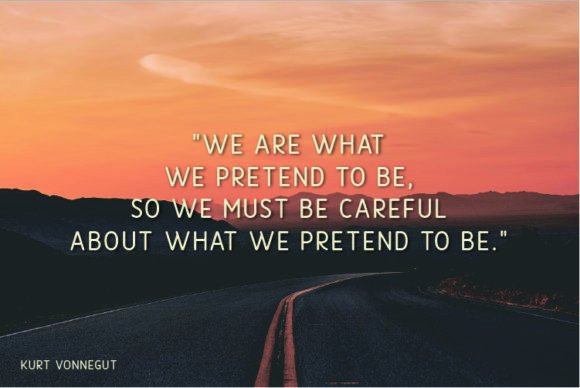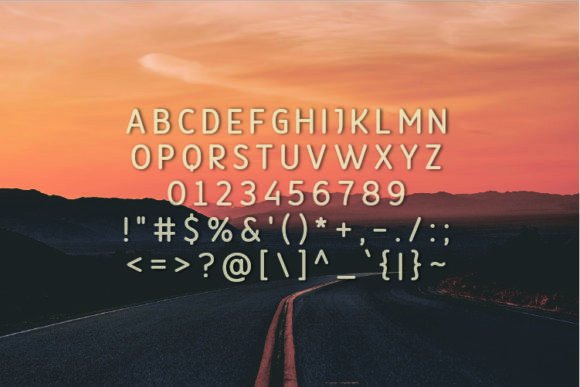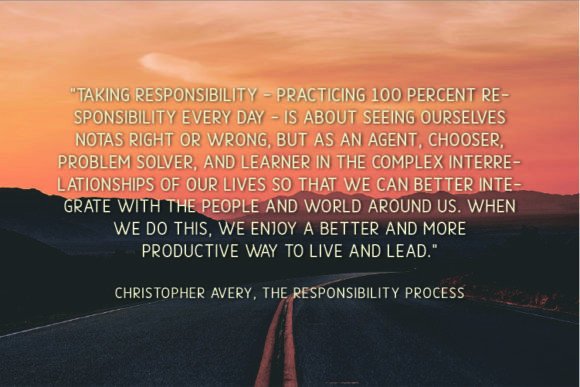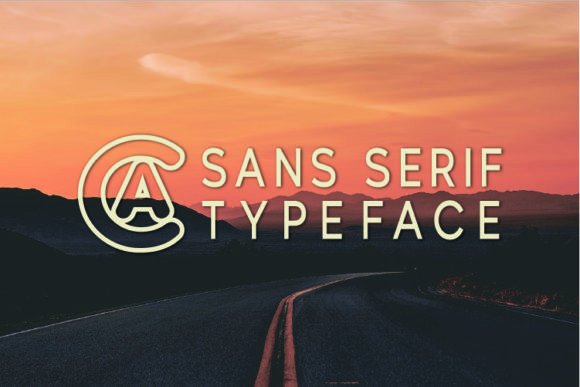
Introducing California: The Modern, Classy Sans Serif Font You Need
I’ll never forget the design project that led me to discover California, a stunning sans serif typeface that has since become a staple in my toolkit. I was working on a luxury brand campaign, and my client requested a font that exuded sophistication, elegance, and a touch of modernity. After hours of scouring font libraries and testing various options, I stumbled upon California – and it was love at first sight! ✨
A Closer Look: What Makes California Special
California is a versatile sans serif typeface that boasts an impressive range of features, making it perfect for a wide array of design projects. Here are some of the key characteristics that caught my attention:
- Uppercase characters, numbers 0-9, and a variety of punctuation and symbols
- Clean, modern lines with a touch of elegance
- Extremely legible, even at small sizes
Honest Review: The Good, the Great, and the Quirks
Now, let’s get down to business – what do I love about California, and where does it fall short? 🤔
- ✨ Its versatility: California shines in logos, weddings, invitations, quotes, advertisements, print, magazines, and more!
- ✅ Exceptional legibility, even at small font sizes
- 💡 Beautiful, modern aesthetic that’s perfect for luxury brands
- ⚠️ Limited language support – while California covers the basics, it may not be the best choice for projects requiring extensive multilingual support
- 🤔 Some users may find the font too minimalist or lacking in personality, but I believe this is part of its charm!
Exploring Alternatives: Similar Fonts to California
The Story Behind California: Designer Inspiration
California was designed with the modern designer in mind. Its creator aimed to craft a font that embodied the spirit of California’s iconic design scene: sleek, sophisticated, and effortlessly cool. The result is a typeface that’s both timeless and on-trend, perfect for designers seeking a versatile, high-quality sans serif.
Q: What type of projects is California best suited for?
A: California excels in a variety of projects, including logos, branding, weddings, invitations, quotes, advertisements, print, and magazines.
Q: Does California support multiple languages?
A: While California covers the basics, its language support is limited. If you need extensive multilingual support, you may want to consider alternative fonts.
Q: Is California available in different font weights or styles?
A: California comes in a range of weights and styles, making it easy to find the perfect variation for your design needs.